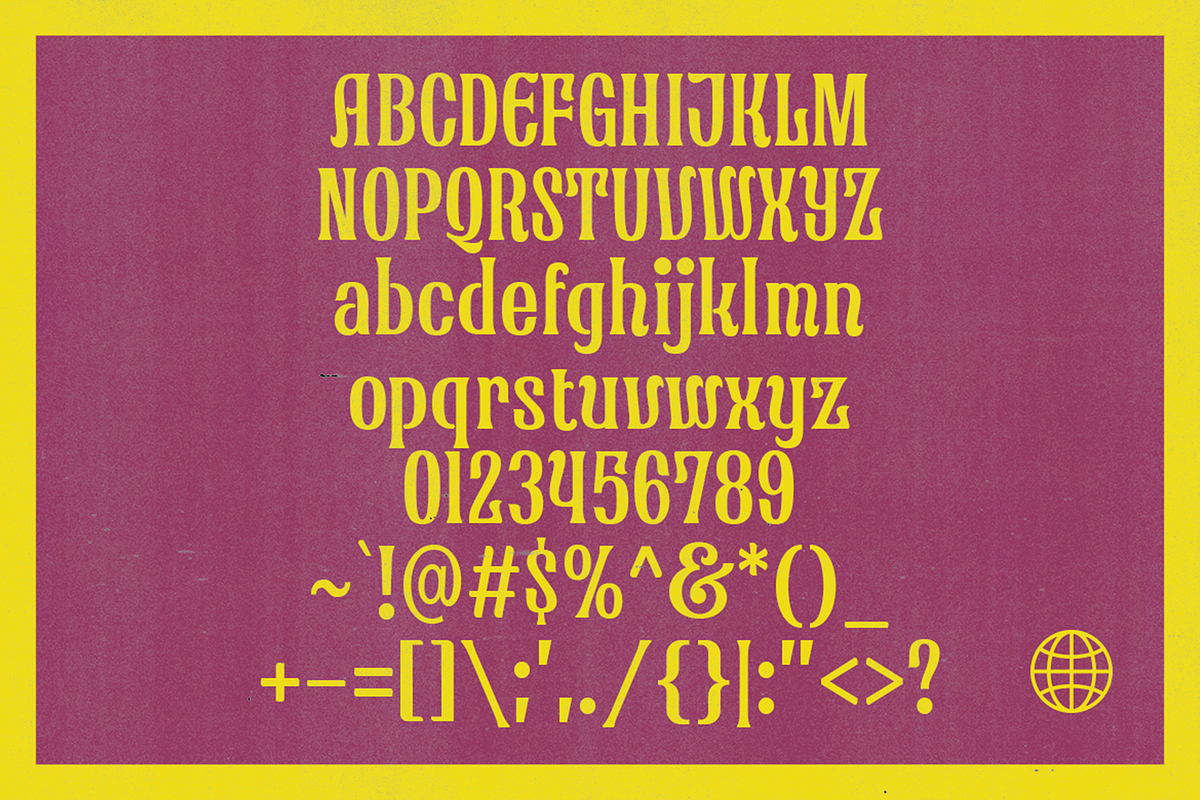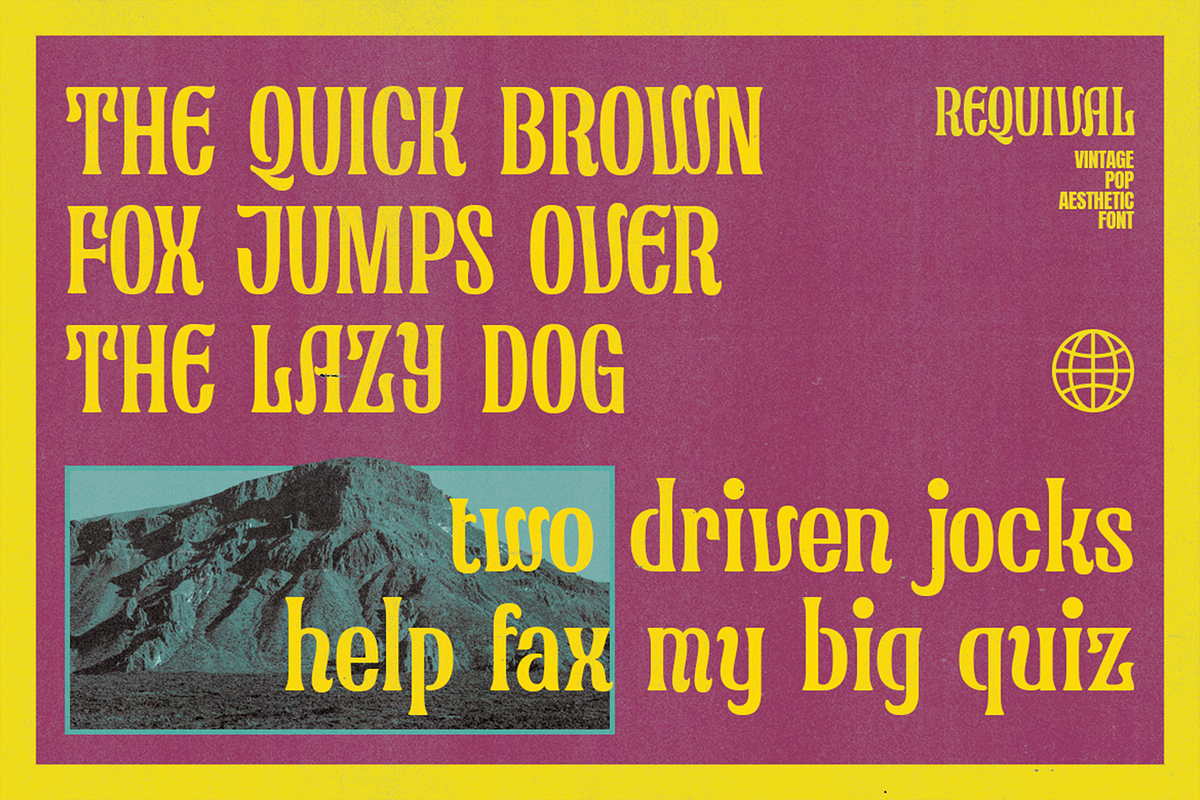
Requival - Pop Aesthetic Fonts
Requival is a mixture of pop aesthetic culture with vintage vibes from the past. In a form of fonts to deliver the message in your visual works.
Perfectly fit for a logo, branding, signage, decor, books, cover, badges and emblems, clothing, apparel, merchandise, movie title, serials, and many more.